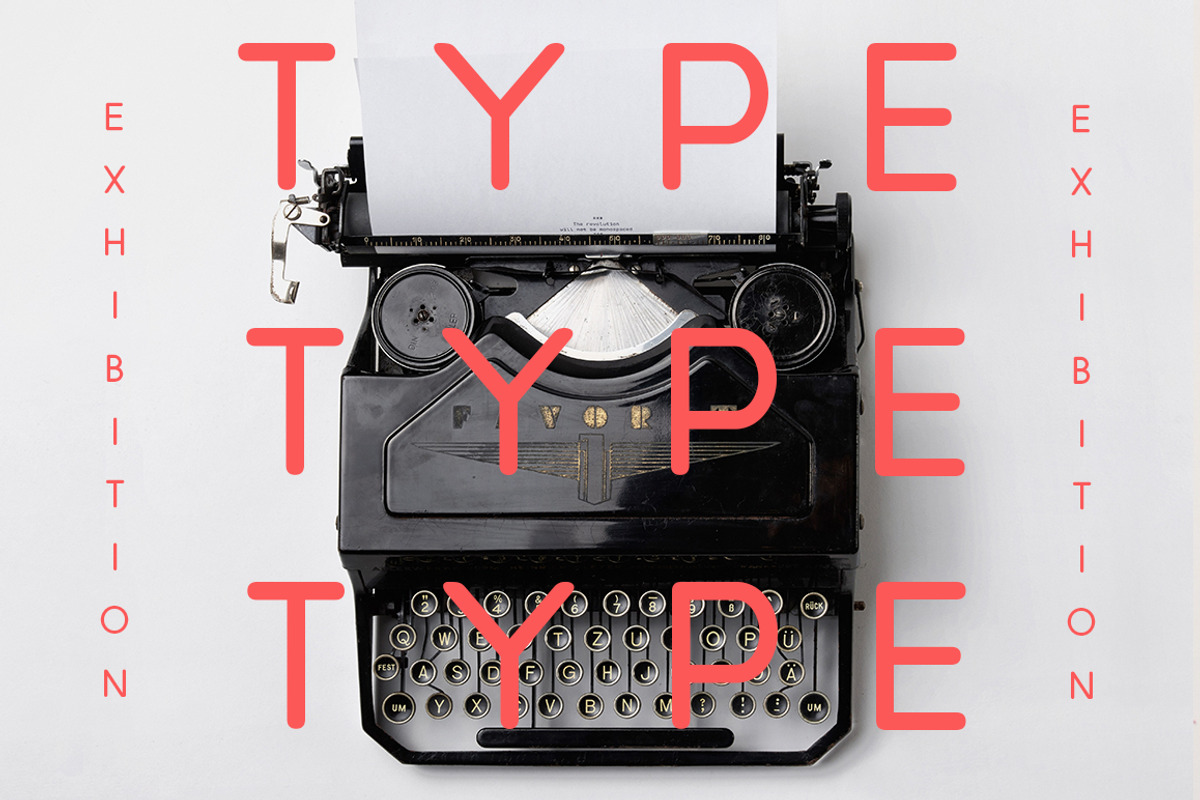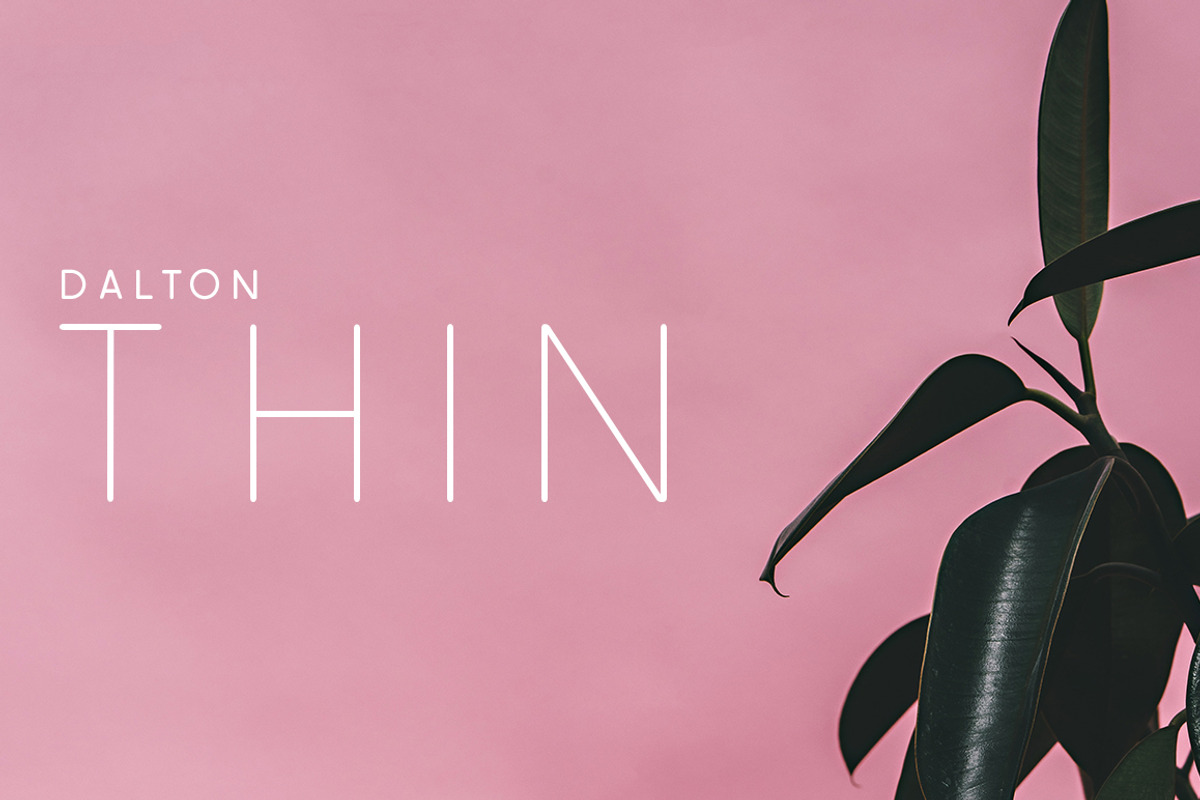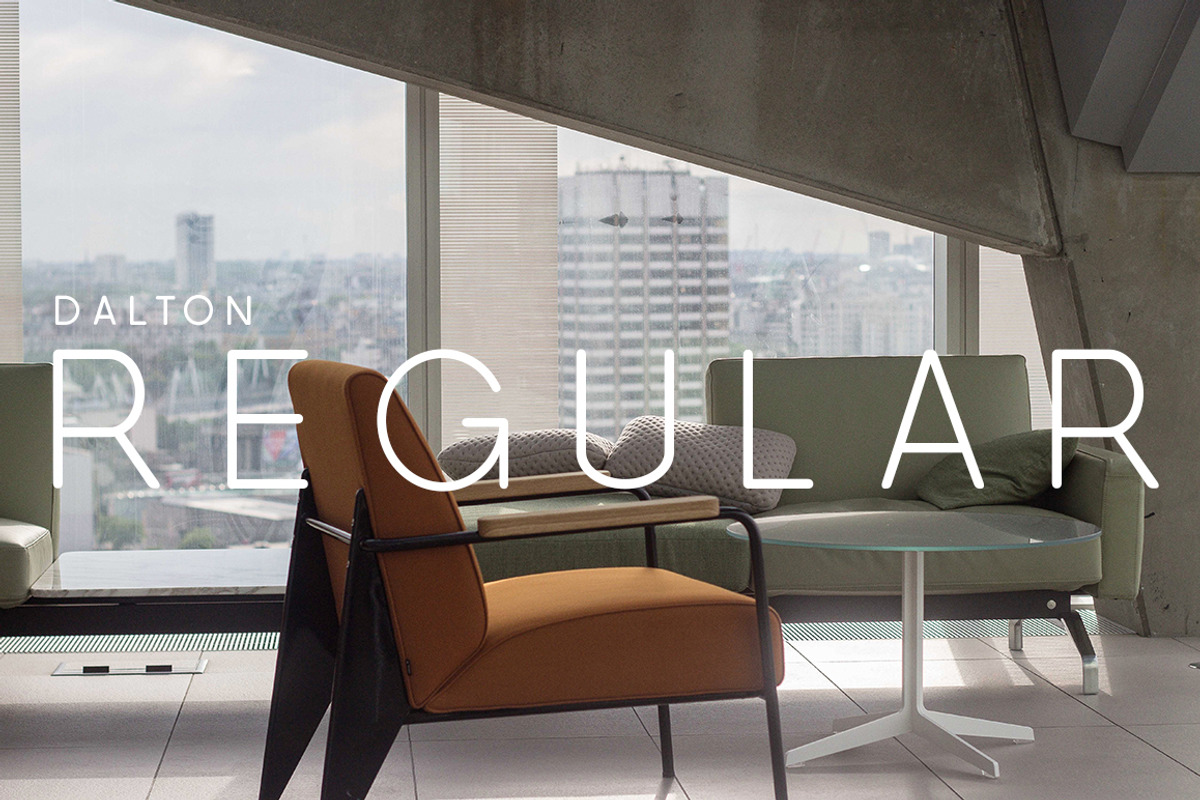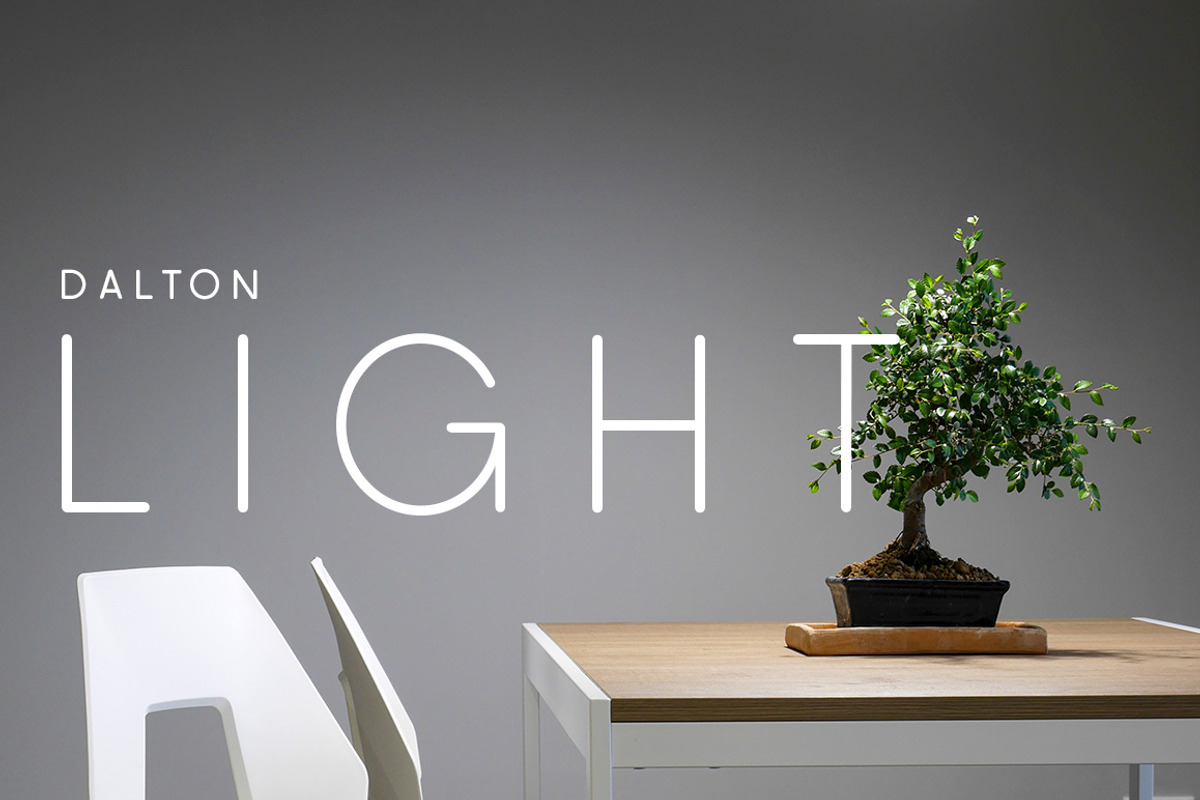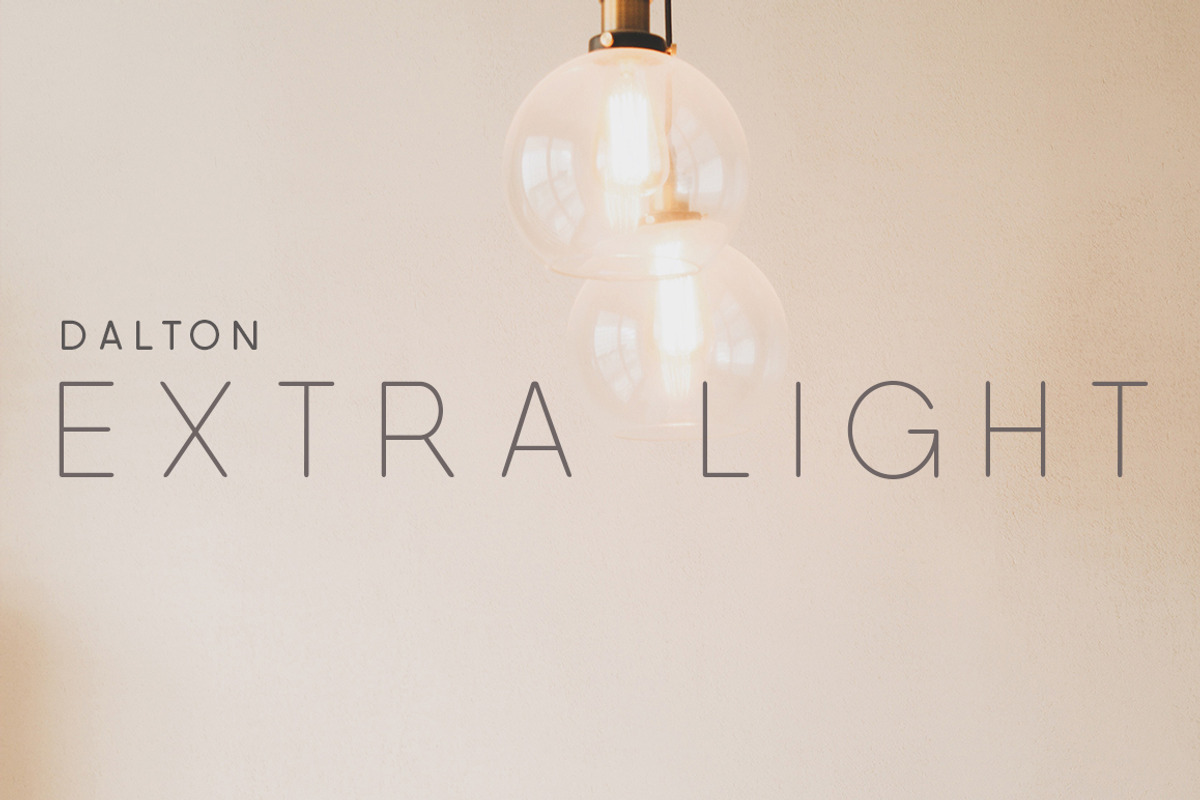
Dalton | A Sleek Rounded Font Family
Soft. Sleek. Distinguished.
If you’re looking for an ultra-sleek soft & rounded sans serif to create recognisable, modern & stylish branding, then Dalton is the font for you.
Dalton is the softer brother of the Colton Font Family, yet it retains its sleek precision and contemporary finish with its refined lines, juxtaposed with its graceful rounding. Dalton is the perfect font family for logotypes, signage & branding for hospitality, food & drink, apparel, and so much more. Its timeless and clean style makes it perfect for an array of projects.
Dalton is a huge font family including a grand total of 18 fonts (over 3000 individual glyphs). This includes Dalton Regular, Light, Extra Light, Thin, Semi Bold, Bold, Ultra Bold, Black & Heavy & Italic.